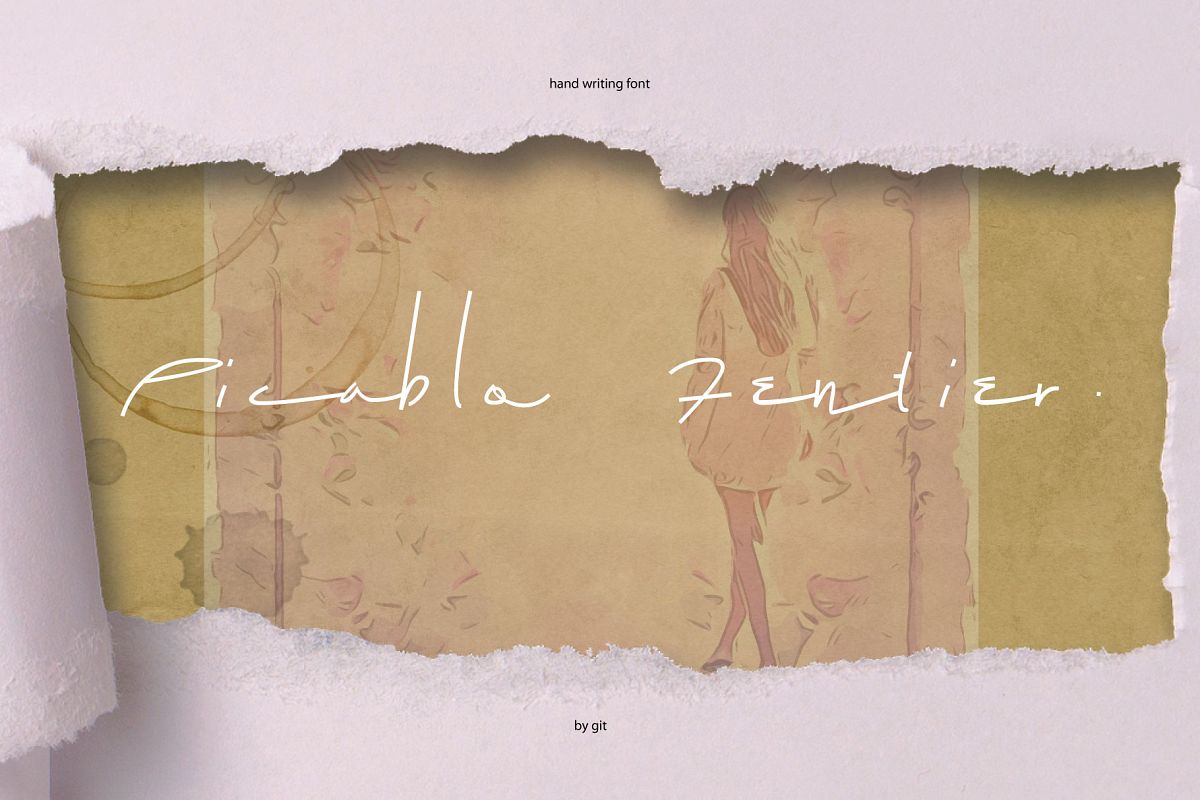
picablo fentier
introduciing picablo fentier , this is unique hand writing font, break the rule of typography, signature feels. sometimes smooth flow and firm at the same time.  It presents beautiful and stylish style script font and a free-flowing. In addition, this font offers beautiful pen movement harmony for a diversity of design projects. it will look great on logos & branding, wedding designs, social media posts, advertisements, poster, etc. So, download now and give it a try!